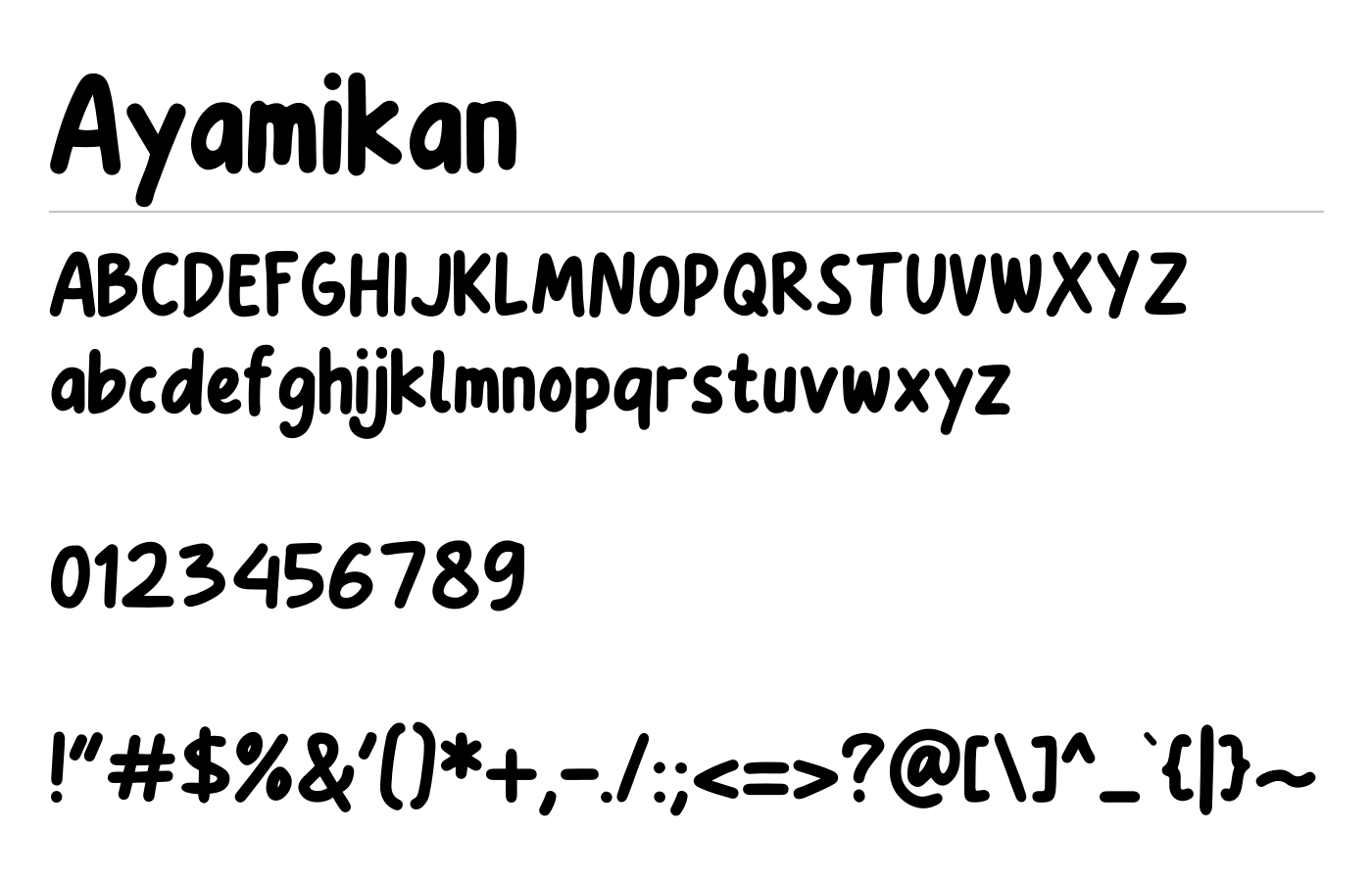
Ayamikan is a playful, casual sans serif font with a hand-drawn feel, featuring rounded strokes and a friendly, approachable style. Its slightly irregular letterforms and moderate x-height make it ideal for informal headlines, children’s books, and creative projects that benefit from a warm, inviting personality. This font works well in designs seeking a fun, personal touch without sacrificing readability.
| Font family | Ayamikan Font |
| Designer | Ali Murtadlo |